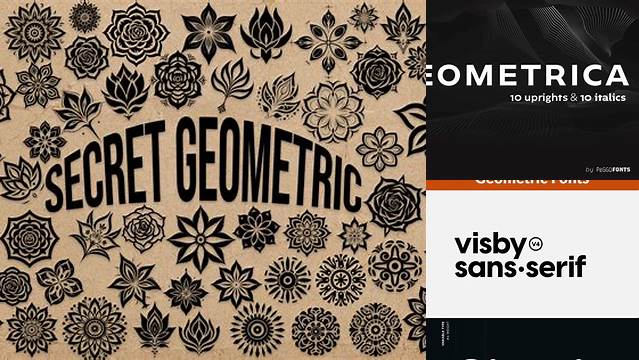
Decoding Geometric Fonts: Meaning & Design Secrets
Hey everyone! Let's dive into the fascinating world of geometric fonts. Ever wondered what makes these fonts so appealing? Well, in this article, we're going to explore everything about geometric fonts – their meaning, design secrets, and why they're a favorite among designers. So, buckle up, and let's get started!
1. The Essence of Geometric Fonts: What They Are and Why They Matter
Geometric fonts, at their core, are typefaces that draw their structure from basic geometric shapes. Think circles, squares, triangles – the building blocks of, well, everything! They're characterized by clean lines, perfect curves, and a sense of mathematical precision. These fonts aren't just aesthetically pleasing; they also communicate specific messages, making them a powerful tool for designers. The beauty of geometric fonts lies in their simplicity and versatility. They can be both modern and timeless, lending themselves to various design styles, from minimalist to futuristic. Their inherent structure provides a sense of order and clarity, making them ideal for conveying messages that require a sense of trustworthiness and professionalism. This makes them a popular choice for branding, logos, and any design project where clarity and legibility are paramount. Plus, the use of these shapes creates a sense of visual harmony, which is often what designers aim for. The use of geometric fonts is more than just an aesthetic choice; it is a thoughtful decision that can substantially influence how a message is received. Geometric fonts are not just pretty; they are strategic. They are a way to visually communicate a brand's values, personality, and overall message. By understanding the fundamentals of these fonts and the messages they convey, you will be well-equipped to choose the ideal typeface for your next design project. Geometric fonts, with their structured design, make a great choice for a variety of projects, each with a unique style.
2. Key Characteristics of Geometric Font Design: Lines, Curves, and Shapes
Let's talk about the core elements. What specifically defines a geometric font? It starts with the shapes. Circles, squares, triangles, and rectangles are fundamental. These shapes are not just random; they form the very structure of the letters. Take the letter 'O' for example; a perfect circle is often the starting point. The 'A' might be constructed using triangles, and the 'H' with straight lines. This deliberate use of basic shapes gives geometric fonts their distinctive appearance of order and harmony. The lines are clean and crisp, devoid of any unnecessary flourishes. This contributes to the font's modern and minimalist feel. Curves are generally smooth and consistent, based on perfect arcs of circles or other geometric forms. The consistency in line weight is also key. Whether it is a thin sans-serif or a bold display font, the strokes maintain a uniform thickness, adding to the visual cohesion. Beyond the individual letterforms, the spacing between letters and words is also carefully considered. Designers use these guidelines for balance, and legibility. The overall goal is to create a visually pleasing and easily readable experience for the viewer. By controlling the lines, curves, and shapes, designers create a typeface that feels precise, balanced, and modern. When you look at a geometric font, appreciate the time and effort that went into creating each letter. These fonts do not just appear by chance; they are meticulously crafted using geometry to design each letter with perfection, ensuring the final result is aesthetically appealing and readable.
3. Geometric Sans-Serif Fonts: A Deep Dive into Style
Geometric sans-serif fonts are like the poster children of this design world. They are the ones you think of when you think of geometric typography. These fonts strip away any decorative elements, leaving only the essential shapes. This creates a clean, uncluttered look that's incredibly versatile. Think of fonts like Futura and Avant Garde Gothic – these are classic examples. They are celebrated for their simplicity and are often used in branding, headlines, and anywhere that demands a modern, clear message. Geometric sans-serif fonts often communicate a sense of forward-thinking, innovation, and efficiency. The absence of serifs (the small decorative strokes at the end of letters) enhances their modern appeal, and the focus on geometric forms reinforces the feeling of order and precision. This makes them perfect for businesses that want to project a modern, streamlined image. Their bold and impactful designs make them perfect for branding. Designers love using them because they are legible at various sizes and work well for both print and digital media. Whether used in logos, websites, or marketing materials, geometric sans-serif fonts help create a strong visual impact and convey a clear brand identity. Their versatility and timeless design ensure that they remain a staple in the design world, maintaining their position as a favorite choice for designers who want to achieve a look that is both stylish and functional.
4. Decoding the Meaning: What Geometric Fonts Communicate
So, what does a geometric font actually say? The meaning is usually pretty clear: it projects a sense of modernity, precision, and clarity. Think about it: the clean lines and perfect shapes create a feeling of order and reliability. This makes them ideal for brands that want to be seen as trustworthy and forward-thinking. They can also convey a sense of innovation and technological advancement, making them popular in the tech industry. These fonts often suggest efficiency and simplicity. The lack of ornamentation means the focus is on the message, making them a great choice for communicating information clearly. The specific nuances in meaning can vary depending on the font itself and how it is used. For example, a bolder geometric font might convey strength and confidence, while a lighter one could suggest a more subtle and refined aesthetic. Ultimately, the power of geometric fonts lies in their ability to instantly communicate key brand values, making them an excellent choice for a wide range of design projects. When selecting a geometric font, always consider the values you want your brand to reflect. Do you want to be seen as cutting-edge and innovative, or as reliable and trustworthy? The right font can help you shape this perception.
5. History and Evolution of Geometric Typefaces: From Bauhaus to Modern Design
The history of geometric typefaces is intertwined with the rise of modernism, especially the Bauhaus movement of the early 20th century. Artists and designers sought to break from traditional styles and embrace a new aesthetic based on functionality, simplicity, and geometric principles. The fonts created during this period, such as Futura and Kabel, were revolutionary. These fonts embraced the use of fundamental geometric shapes. They embodied the ideals of clarity, efficiency, and a rejection of unnecessary ornamentation. After the Second World War, geometric fonts gained even wider popularity as the design world embraced a more international and streamlined aesthetic. Their clean lines and minimalist designs were well-suited to the era's focus on modernity, technology, and progress. Over the years, geometric fonts have evolved. While maintaining their core characteristics, new variations and interpretations have emerged. Designers continue to experiment with different weights, styles, and applications, ensuring these fonts remain relevant and adaptable to contemporary design trends. They are constantly reinvented. Today, they are as popular as ever, proving their timelessness and adaptability. Understanding their history gives you a greater appreciation for their significance and impact on design.
6. Notable Geometric Fonts and Their Unique Characteristics
There are many types of geometric fonts, and each one has its own personality. Let's look at a few of the most notable. First, we have Futura, probably the most iconic of them all. It is known for its perfect circles and clean lines, giving it a sense of efficiency and modernity. Then there is Avant Garde Gothic, characterized by its distinctive letterforms and a slightly more stylized appearance. It is great for creating a bold, contemporary look. Next is Gotham, which offers a more humanist feel, while still adhering to the geometric principles. It is a popular choice for branding and editorial design. Each font has a unique personality. Some are more formal, while others are more playful. This variety means there is a geometric font to suit almost any design project. To select the ideal typeface, carefully consider what message you want to convey and what type of aesthetic best fits your brand. Experiment with different fonts to see which one creates the look you want. By studying the unique characteristics of each font, you can make sure to select the right one to fit your design needs.
7. Geometric Fonts in Branding: Crafting a Strong Visual Identity
Geometric fonts are perfect for creating a strong visual identity. They are often used in logos because of their ability to communicate key brand values instantly. A well-chosen geometric font can convey a sense of modernity, reliability, or innovation, which are all key components of a strong brand image. Many big brands, like Adidas and Volkswagen, use geometric fonts in their logos, demonstrating their effectiveness. These fonts are also ideal for creating a consistent look across all brand materials, from websites and packaging to marketing materials. This consistency reinforces brand recognition and trust. The use of geometric fonts is more than just an aesthetic choice; it is a strategic decision that can shape how your brand is perceived. When selecting a font, consider your brand's values, target audience, and overall aesthetic. Choose a font that complements your brand’s personality and helps you communicate your message effectively. Make sure that the font is legible, versatile, and well-suited to your design needs.
8. Legibility and Readability: Making Geometric Fonts Work
Even the most beautiful geometric font is useless if it is not legible. The key to making these fonts work is to ensure they are readable in all contexts. Choosing the right font weight is important. For body text, you will want to choose a font that is light enough to read comfortably on the screen, yet heavy enough to stand out. Kerning and tracking, which involve adjusting the spaces between letters and words, are also essential. Careful attention to spacing helps prevent letters from appearing too crowded, which can hurt readability. In choosing a font, consider the size at which it will be displayed. Some fonts that look great in headlines might be challenging to read in small sizes. Ensure that the contrast between your text and the background is strong enough. Black text on a white background is a safe choice, but other color combinations can work well, too, as long as they provide good contrast. By following these guidelines, you can ensure that your geometric fonts are not just aesthetically pleasing but also highly readable.
9. Geometric Fonts in Web Design: Modernity and Functionality
In web design, geometric fonts can transform the look and feel of a website, conveying a sense of modernity and professionalism. They are often used for headlines, navigation menus, and other key elements to draw attention and create visual hierarchy. One of the key benefits of using geometric fonts on the web is their clean and minimalist aesthetic, which aligns with modern design trends. They can improve the user experience by making text easier to read and navigate, especially on mobile devices. When using these fonts on the web, it is important to consider legibility and readability. This means choosing fonts that are clear at various sizes and ensuring there is adequate contrast between the text and background. It is also crucial to ensure the fonts load quickly and render correctly across different browsers and devices. By incorporating geometric fonts into your web design, you can create a contemporary look and make your website visually appealing.
10. Combining Geometric Fonts with Other Typefaces: Harmonious Pairings
Geometric fonts can be remarkably versatile, but sometimes, the best design is one that combines different typefaces. Pairing a geometric font with another font can create a more dynamic and visually interesting design, as long as you choose the right combinations. Think about the desired contrast, such as combining a clean geometric sans-serif with a serif font for body text. This combination provides visual variety and helps establish a clear hierarchy of information. When pairing fonts, aim for a balance of personality and function. You want fonts that work well together. Choose fonts that complement each other without competing for attention. Consider the mood or message you want to convey and select typefaces that support that goal. Experiment with different font pairings to find the best fit for your project. This will help you make your design more engaging and visually appealing.
11. Geometric Fonts and Minimalism: The Power of Simplicity
Geometric fonts pair exceptionally well with the minimalist design style. Both share a core philosophy of simplicity, clean lines, and a focus on essential elements. The combination is often used in projects that want to communicate a message of clarity, modernity, and sophistication. In a minimalist design, the geometric font becomes a key visual element. It provides a sense of structure and order, while also contributing to the overall sense of restraint and elegance. Because geometric fonts lack unnecessary ornamentation, they are perfect for creating a clean and uncluttered visual experience. The key is to embrace negative space and use the font to its fullest potential. The absence of clutter draws attention to the message and makes the design more engaging. By understanding how to use geometric fonts in a minimalist way, you can create designs that are powerful, effective, and aesthetically pleasing.
12. Geometric Fonts for Headlines: Making a Bold Statement
Headlines are essential for grabbing attention, and geometric fonts are perfect for this purpose. Their clean lines, bold shapes, and modern feel make them ideal for creating impactful headlines that instantly capture the reader's attention. They are used to convey a message of confidence and authority, making them great for branding and marketing. Using a geometric font for a headline is like making a visual statement. The fonts instantly communicate the mood and tone of the piece, helping to set the tone for the rest of the content. The key is to select the right font for the context. A heavy geometric font might be perfect for a bold headline, while a lighter font might be better for a more nuanced message. With well-chosen headlines, your message will be more appealing to your audience. They also help create a visual hierarchy, which will make your design more effective.
13. Geometric Fonts in Logo Design: Iconic and Memorable
Geometric fonts are frequently used in logo design, and for good reason. Their simplicity, versatility, and inherent sense of order make them ideal for creating logos that are both iconic and memorable. Logos often aim to communicate key brand values, and geometric fonts are great for doing just that. The clean lines and perfect shapes can convey trustworthiness, innovation, and modernity, all key characteristics of a successful brand. They can also be adapted to different contexts, from print to digital, without losing their impact. When designing a logo with a geometric font, remember the logo should be unique and instantly recognizable. Avoid making it too complicated, as this can distract from the message. With the right font and a good design, you can make a logo that lasts for years.
14. Geometric Fonts and Modern Art: A Fusion of Design and Expression
Geometric fonts have a strong connection to modern art, as both share a common interest in shape, form, and simplicity. Think of the Bauhaus movement, where artists and designers sought to create a new aesthetic based on geometric principles. They used these principles in typography, architecture, and art, reflecting their belief in functionality, order, and a rejection of historical ornamentation. Geometric fonts often complement modern art styles, creating a sense of harmony and balance. Whether it is used in a gallery or for an exhibition, the fonts create a visual link between the art and the viewer. The pairing of geometric fonts with modern art enhances the artistic experience. By understanding their connection, you can create designs that have a modern and artistic appeal. They also help draw attention to the artworks by adding visual intrigue and meaning.
15. The Psychology of Geometric Fonts: How Shapes Influence Perception
Geometric fonts can influence our perception in profound ways. The shapes that make up these fonts carry psychological associations. Circles are associated with harmony, unity, and completeness. Squares and rectangles, on the other hand, often suggest stability, structure, and reliability. Triangles can convey a sense of energy, dynamism, and direction. These associations influence how we perceive a brand, product, or message. The psychology of geometric fonts shows how strategic design choices can affect consumer behavior. When selecting a font, think about the emotions and associations you want to evoke. A brand that wants to be seen as trustworthy might choose a font with strong, stable shapes. A brand that wants to be seen as innovative might choose a font with more dynamic shapes. By understanding the psychology of geometric fonts, you can create designs that connect with your audience and have a strong emotional impact.
16. Geometric Font Variations: Exploring Different Styles and Weights
Geometric fonts come in various styles and weights, from light and airy to bold and assertive. The range of options offers designers the flexibility to create designs that match their needs. Understanding these variations is important for selecting the right font for your project. A light font is great for body text, while a bold font is great for headlines. The font style can affect the mood and tone of a design. A rounded geometric font might feel softer and more approachable. A sharp-angled font might feel more edgy and modern. Experiment with the many different styles and weights to see which ones work best. Keep the visual appeal and readability in mind, and you'll be able to create the perfect designs.
17. Geometric Fonts for Posters and Flyers: Making a Visual Impact
Geometric fonts are great for posters and flyers, as they can instantly grab attention. Their clean lines and bold shapes create visual impact that is impossible to ignore. In a world of visual overload, you want your poster or flyer to stand out. The impact of geometric fonts creates visual appeal, while also communicating key information in a clear and concise manner. Using the right font will enhance the aesthetic design of the poster. A geometric font can also help you to create a consistent brand identity across all of your marketing materials. By understanding how to use geometric fonts in these designs, you can create posters and flyers that get noticed and deliver your message effectively.
18. Geometric Fonts in Packaging Design: Enhancing Brand Appeal
In packaging design, the right font can be crucial. Geometric fonts can enhance brand appeal, giving products a modern and sophisticated look. They are often used for product names, descriptions, and branding elements, instantly communicating values. The clean and uncluttered aesthetic of geometric fonts is great for creating a sense of order and visual harmony. Consider your product and target audience when selecting a font. A sleek and modern font might work well for tech products. By choosing the right font, you can make your packaging more appealing and help your products stand out on the shelves. The right font will enhance the product's visual appeal and connect with consumers.
19. Choosing the Right Geometric Font: A Designer's Guide
Choosing the right geometric font can be a challenging task. You need to consider many factors, including the project's purpose, the target audience, and the overall design aesthetic. First, consider the project's purpose and the message you want to convey. Do you want to communicate a sense of trust, innovation, or simplicity? Look at the font's personality and select a font that complements your brand's identity. Always check the font's legibility at different sizes and in various contexts. You also want to test how the font looks with different backgrounds and design elements. Finally, do not be afraid to experiment. It's best to try out a variety of fonts before making your final decision. By following this guide, you can choose a font that fits your project and creates designs that are visually appealing and effective.
20. Where to Find Geometric Fonts: Resources and Recommendations
There are tons of resources to find awesome geometric fonts. You can explore both free and premium options to get the perfect fit for your project. Google Fonts is a great place to start, as it offers a vast collection of open-source fonts, including several geometric options. Many font foundries also offer a wide selection of geometric fonts, often with more unique styles and weights. Websites like MyFonts, Creative Market, and Behance are great places to discover a wide range of fonts. Check licenses and usage rights for each font before you use them. By exploring these different resources, you will be able to find the perfect geometric font for your design needs.
21. Geometric Fonts for Editorial Design: Creating Visual Hierarchy
Geometric fonts can be used to create a sense of visual hierarchy. Their clear and modern appearance makes them excellent for headlines, subheadings, and body text. The use of different weights, styles, and sizes allows designers to create a clear and organized layout, guiding the reader's eye through the content. They can be used to create a sense of order and visual harmony. The clean lines and perfect shapes of these fonts add to the overall aesthetic and make the design more appealing. When using geometric fonts in editorial design, think about creating a balance between functionality and aesthetics. Always ensure that the text is clear and easy to read. By following these guidelines, you can create designs that are both visually appealing and effective in communicating your message.
22. Geometric Fonts in Motion Graphics: Dynamic and Engaging
In motion graphics, geometric fonts bring a dynamic and engaging visual element. Their clean lines and precise shapes translate well into animations, creating visually captivating content. The font choices can enhance the storytelling and convey key information effectively. When designing with geometric fonts in motion graphics, remember that their simplicity makes them versatile. You can use them for titles, animated text, and graphics. The key is to ensure that the animations are smooth and engaging. This combination of font and motion can create visually stunning content. By understanding how to use geometric fonts in motion graphics, you can bring your designs to life and create a lasting impact on your audience.
23. Geometric Fonts and Technology: Modernity and Innovation
Geometric fonts perfectly reflect technology, with their sleek lines and modern aesthetics. In the tech industry, these fonts communicate a sense of innovation, efficiency, and forward-thinking. The association between these fonts and technology is rooted in shared values of precision, clarity, and a focus on functionality. The modern aesthetic of geometric fonts makes them a favorite for tech branding. You can see this in websites, apps, and other tech products. The use of geometric fonts in the tech industry is a reflection of the industry's commitment to modernity and innovation. Geometric fonts are a great choice for communicating the values of technology. The association creates a positive brand image. In the tech world, geometric fonts have a home.
24. Geometric Fonts for Data Visualization: Clarity and Precision
Geometric fonts are suitable for data visualization. Their clean lines and minimalist design create clear and easy-to-understand visuals. In the complex world of data, clarity is important, and geometric fonts are great at conveying information in a clear and concise manner. Geometric fonts are ideal for labels, titles, and annotations, as they contribute to an uncluttered layout. The association between geometric fonts and data visualization is one of functionality and efficiency. Choose fonts that are highly legible, even at small sizes. With a well-chosen geometric font, data becomes more accessible. So, for better data presentation, geometric fonts are your friend.
25. Geometric Fonts and Color: Enhancing Visual Impact
The right colors can boost the impact of geometric fonts. The combination of clean lines and colors can create visually appealing designs. When selecting colors for geometric fonts, think about the overall design aesthetic, and the brand identity. The color combinations are essential for creating the look you want. Ensure that the contrast between the text and the background is high enough to ensure readability. Use color to highlight key information and create visual interest. Consider your audience and the message you want to convey. The right color palette can enhance the overall effectiveness of the design. So, to create a striking visual impact, geometric fonts and color are the perfect pair.
26. Geometric Fonts and the Future of Design: Trends and Predictions
What is next for geometric fonts in design? These fonts have shown their adaptability and continued relevance. They will remain popular in modern design, as they capture the current emphasis on simplicity, clarity, and functionality. We will likely see more experimentation. Designers will continue to explore different styles and applications. The evolution of geometric fonts is a good sign. They will continue to play a major role in branding, web design, and other areas. So, what is next? Expect them to keep inspiring new creative designs. With so much to offer, geometric fonts are here to stay.
27. Tips for Using Geometric Fonts: Best Practices for Designers
There are some basic tips to follow when using geometric fonts. The first thing is to choose fonts that match your project and target audience. Ensure the font is readable at various sizes, and that the tracking and kerning are correct. Use the fonts wisely and be conscious of the negative space. By following these best practices, you can create designs that are both visually appealing and effective.
28. Mistakes to Avoid When Using Geometric Fonts: Common Pitfalls
Avoiding common mistakes will make sure your use of geometric fonts looks good. One mistake is picking the wrong font for the project. Ensure your font choice is suitable for your audience and brand. Also, avoid overusing the font. The overuse of a font can make your design look cluttered. By avoiding these common mistakes, you can make sure your design is effective.
29. The Versatility of Geometric Fonts: Applications Across Industries
One thing that makes geometric fonts so popular is their versatility. These fonts can be used across almost all industries. From tech to fashion, these fonts can be found in almost any visual medium. Their versatility makes them a good choice. To create effective designs, you can use these fonts across industries.
30. Geometric Fonts: The Enduring Appeal and Ongoing Relevance
Geometric fonts are still here, and their enduring appeal and ongoing relevance show their lasting power. They have proven their ability to adapt to the changing design world. The clean lines and modern aesthetics of these fonts make them a favorite for designers. They will continue to influence how we communicate visually. So, if you want a design that is modern and effective, consider using a geometric font. With so much to offer, they have a permanent place in the world of design. Their staying power confirms their importance and value. Use them, and you will appreciate the elegance and efficiency of geometric fonts.